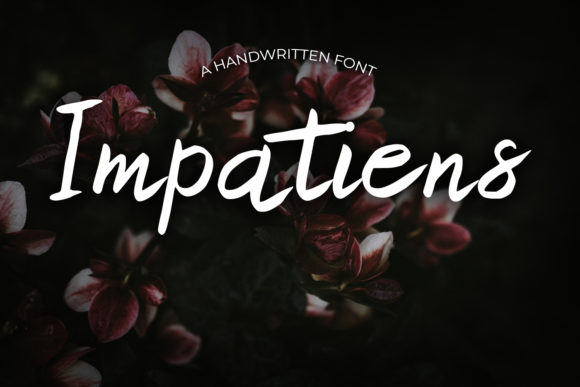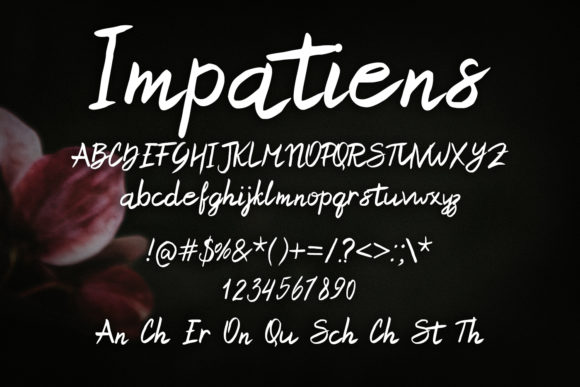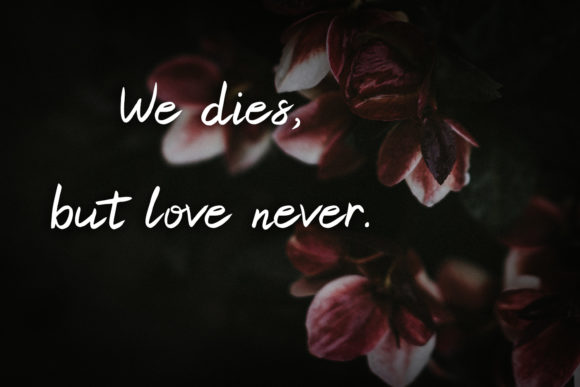
Impatiens Font
Impatiens is a cursive and distinct handwritten font. It looks lovely and joyful and is the ideal choice for a variety of designs. It can be used for various purposes such as logos, wedding invitations, headings, t-shirts, letterhead, signage, labels, news, posters, badges and so much more.